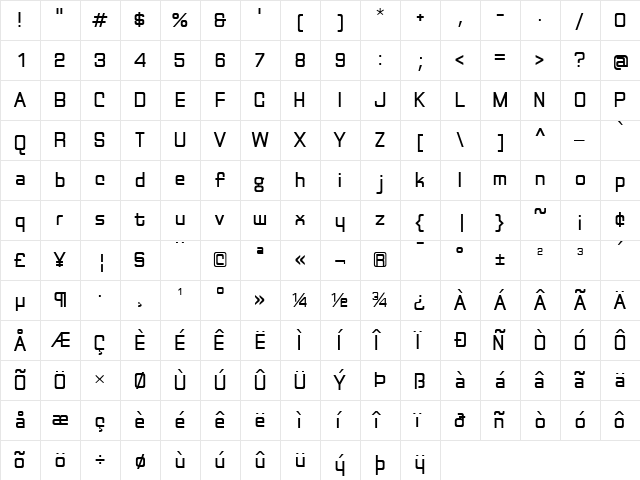
Discognate Regular
Design Context for Discognate Typeface
Discognate is a composed and adaptable typeface that performs quietly and consistently across a wide range of design contexts.